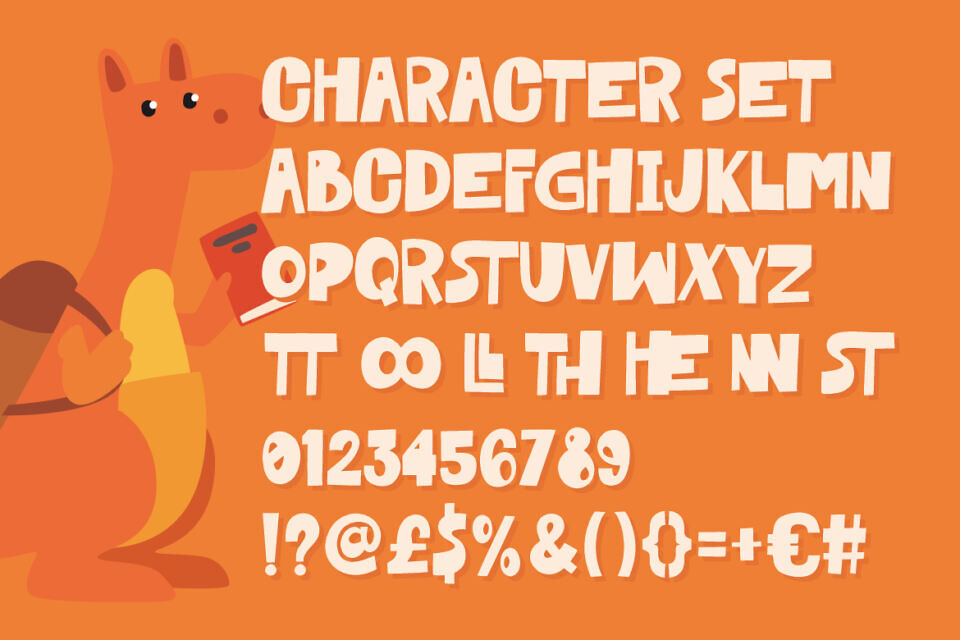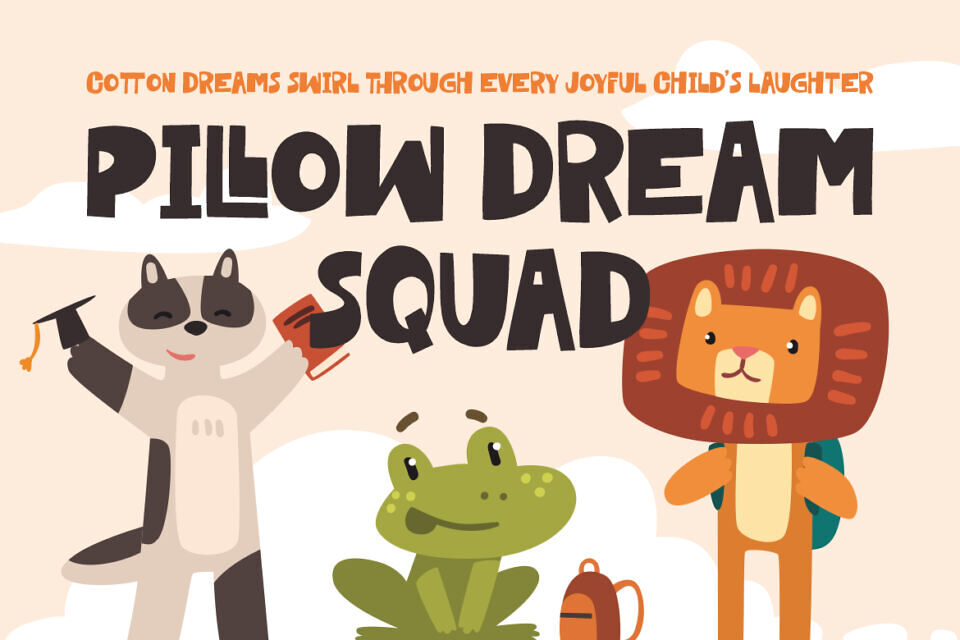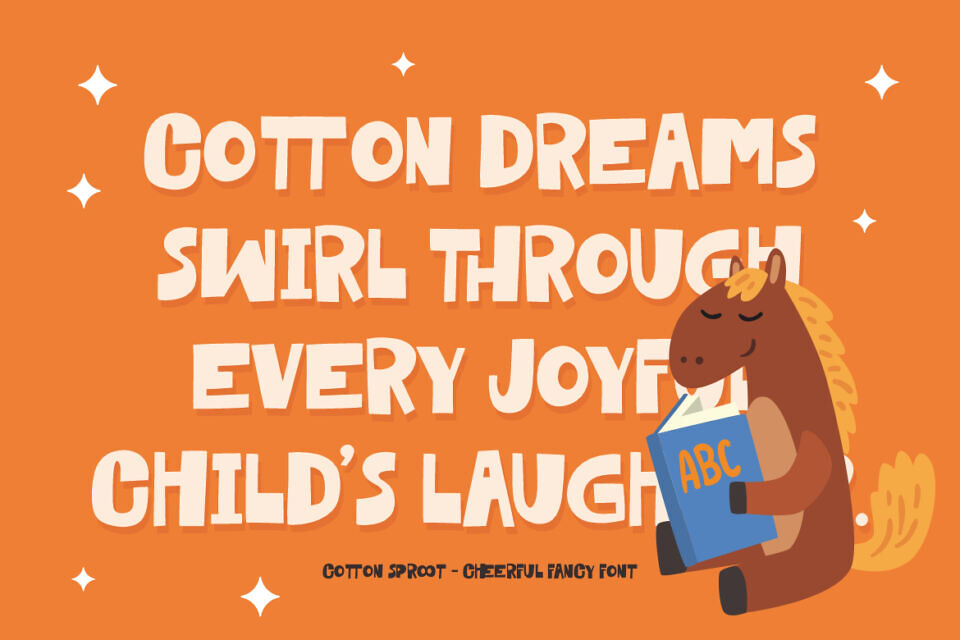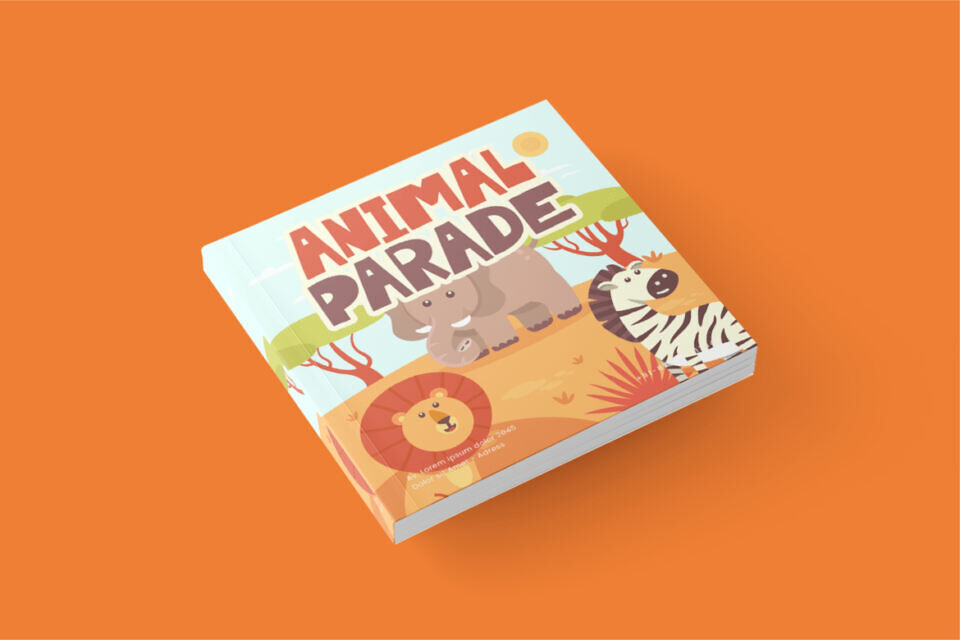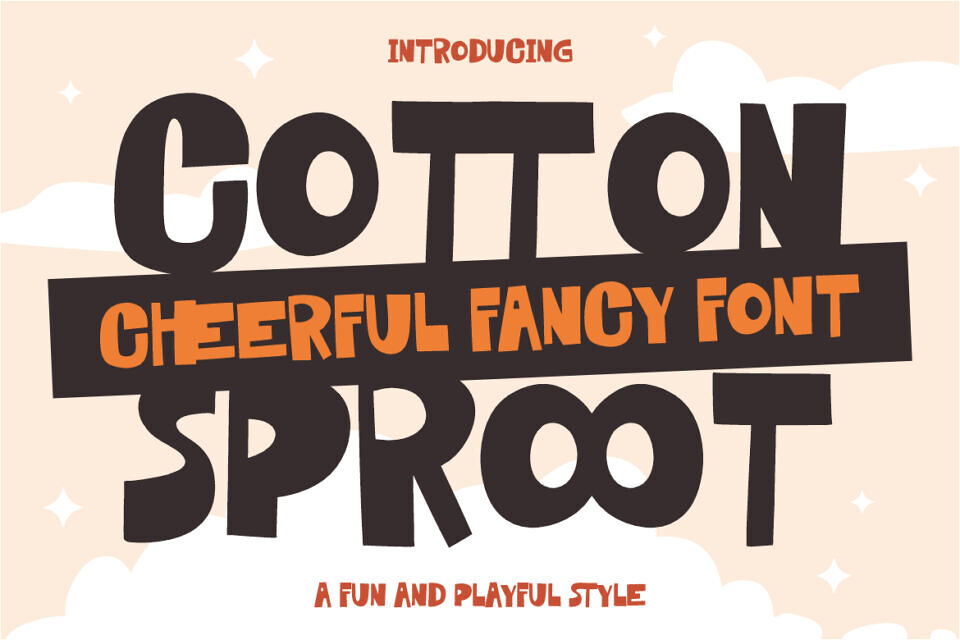
Cotton Sproot Font
Cotton Sproot is a cheerful and playful fancy font that brings energy, joy, and childlike wonder to any design. Its thick, bubbly strokes and slightly wobbly shapes create a spontaneous charm—perfect for early-age education, children’s books, or playful branding. With exaggerated letterforms and fun proportions, each character seems to bounce off the baseline, enhancing the lighthearted atmosphere of your message. The unique ligatures and alternate glyphs make it versatile and expressive across layouts and headlines.
This font has been designed for kids-oriented visuals such as book covers, birthday posters, classroom materials, and packaging for fun products. Whether you’re crafting a whimsical logo or decorating a gift card, Cotton Sproot brings a delightful impact. Its joyful nature blends smoothly with colorful themes, animal illustrations, or creative kids’ content. This font supports multilingual characters and includes complete punctuation, numbers, and ligatures to ensure wide usability in various cheerful applications.